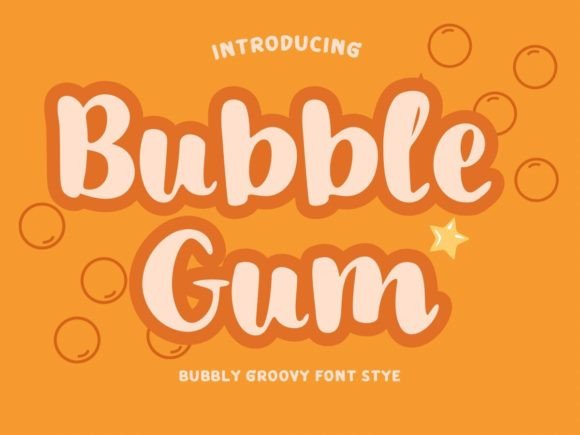
Add a Pop of Fun and Charm with the Bubble Gum Bubbly Font
I’ll never forget the time I was working on a design project for a children’s birthday party invitation. I had the concept, the colors, and the graphics all nailed down, but something was missing. That’s when I realized I needed a font that would capture the playful and whimsical vibe of the party. After scouring through font libraries and searching online, I stumbled upon the Bubble Gum Bubbly Font. It was love at first sight! ✨
This delightful, playful typeface has since become a staple in my design toolkit, and I’m excited to share its charm with you. In this article, we’ll explore the Bubble Gum Bubbly Font, its features, and how to use it to add a touch of fun and whimsy to your designs.
So, what makes the Bubble Gum Bubbly Font so special? Here are some things I love about it:
- ✨ Playful and whimsical design that’s perfect for creative projects
- 🎉 Extensive character set, including glyphs and stylistic alternates
- 💕 Wide range of design possibilities, from digital to print
- 🤔 Some users may find the font a bit too playful for formal designs
- ⚠️ Limited support for non-English characters
The Designer Inspiration Behind the Font
The Bubble Gum Bubbly Font was designed by a team of creatives who wanted to capture the magic of childhood and the joy of play. Inspired by the colorful world of bubblegum, candy, and ice cream, they crafted a font that’s both fun and functional. The result is a typeface that’s perfect for designs that need a touch of whimsy and personality.
| What type of designs is the Bubble Gum Bubbly Font best suited for? | The Bubble Gum Bubbly Font is perfect for creative projects that need a playful and whimsical touch, such as children’s designs, party invitations, social media graphics, and more. |
| Is the Bubble Gum Bubbly Font suitable for body text? | While the font is highly legible, it’s best used for headlines, titles, and short paragraphs. For longer body text, a more traditional font may be more suitable. |